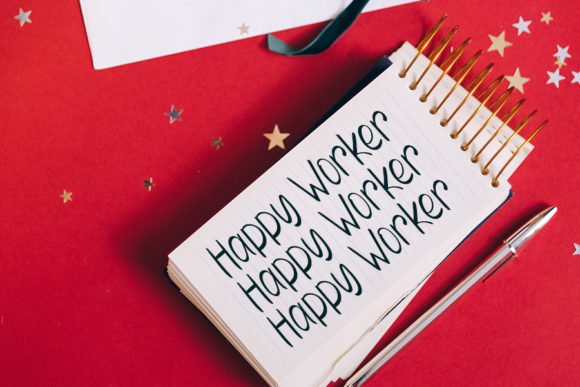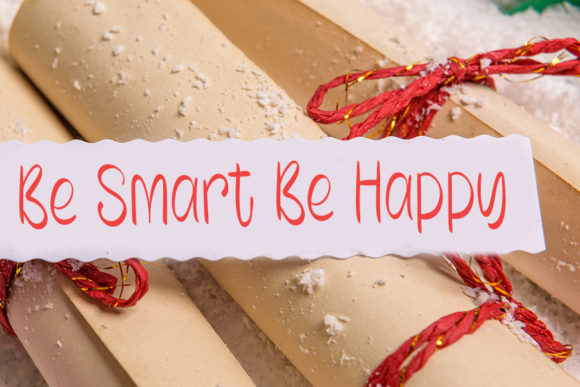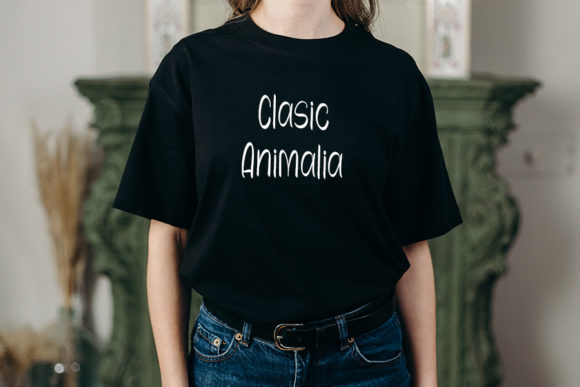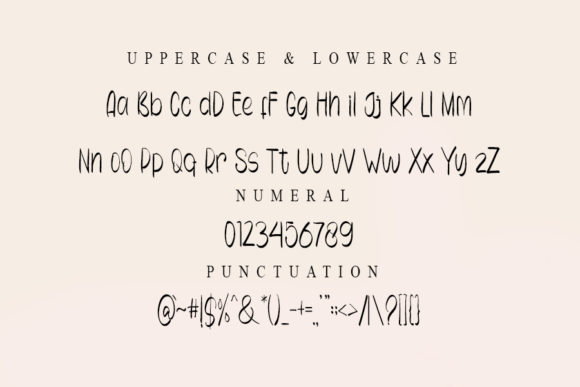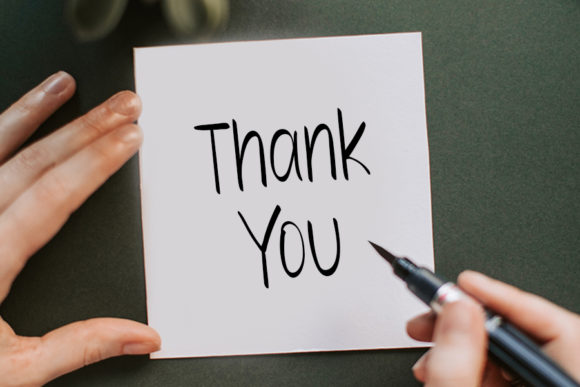
Baby Mouse Font: The Friendly and Quirky Display Font for Your Creative Projects
Are you a designer or crafter looking for a unique and versatile font to add a touch of personality to your projects? Look no further than the Baby Mouse Font! This tall and friendly display font is perfect for a wide range of informal contexts, from playful branding and advertising to creative crafting and DIY projects.
What Makes Baby Mouse Font So Special?
Baby Mouse Font is a little bit quirky, with an authentic and neat feel that makes it stand out from the crowd. Its tall and slender design gives it a friendly and approachable vibe, making it perfect for projects that require a playful and informal tone. Whether you’re designing a logo, creating a craft tutorial, or working on a DIY project, Baby Mouse Font is sure to add a touch of whimsy and personality to your work.
Key Features of Baby Mouse Font
- Tall and friendly display font: Baby Mouse Font is designed to make a statement, with a tall and slender design that’s perfect for headlines, titles, and other display text.
- Quirky and authentic feel: This font has a unique and playful personality that’s sure to add a touch of whimsy to your projects.
- Neat and clean design: Despite its quirky feel, Baby Mouse Font has a neat and clean design that’s easy to read and works well in a variety of contexts.
- Versatile and adaptable: This font is perfect for a wide range of projects, from branding and advertising to crafting and DIY tutorials.
Uses for Baby Mouse Font
Baby Mouse Font is a versatile and adaptable font that can be used in a wide range of creative projects. Here are just a few ideas to get you started:
- Branding and advertising: Use Baby Mouse Font to create playful and eye-catching logos, ads, and marketing materials that are sure to stand out.
- Crafting and DIY projects: Add a touch of personality to your crafting and DIY projects with Baby Mouse Font, perfect for tutorials, patterns, and other creative projects.
- Sign making and display text: Use Baby Mouse Font to create eye-catching signs and display text for events, parties, and other gatherings.
- Social media graphics: Add a playful touch to your social media graphics with Baby Mouse Font, perfect for creating engaging and shareable content.
Why Designers and Crafters Love Baby Mouse Font
So why do designers and crafters love Baby Mouse Font? Here are just a few reasons:
- Unique and playful personality: Baby Mouse Font has a unique and playful personality that’s sure to add a touch of whimsy to your projects.
- Easy to read and use: Despite its quirky feel, Baby Mouse Font is easy to read and use, making it perfect for a wide range of projects.
- Versatile and adaptable: This font is perfect for a wide range of projects, from branding and advertising to crafting and DIY tutorials.
- High-quality design: Baby Mouse Font is designed to high standards, with a clean and neat design that’s sure to impress.
In conclusion, Baby Mouse Font is a friendly and quirky display font that’s perfect for designers and crafters looking to add a touch of personality to their projects. With its tall and slender design, authentic and neat feel, and versatile and adaptable nature, this font is sure to become a favorite in your creative toolkit. So why not give Baby Mouse Font a try today and see the difference it can make in your creative projects?